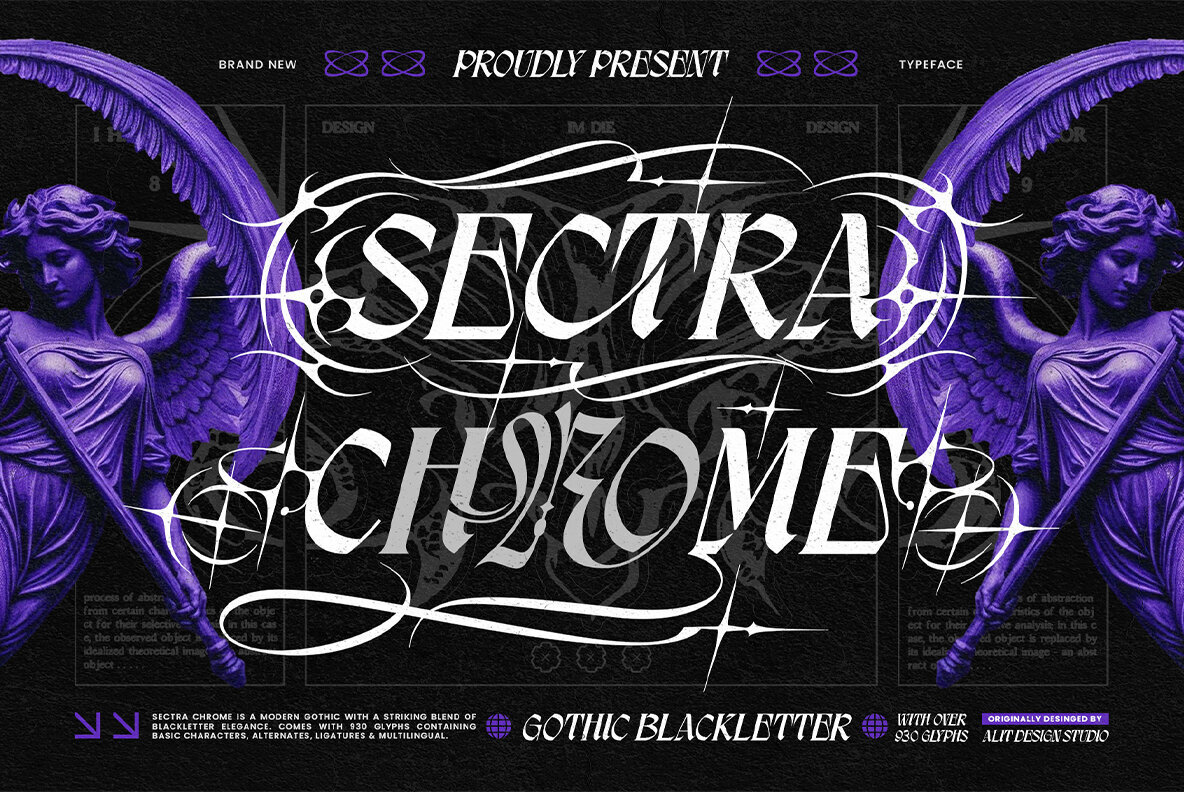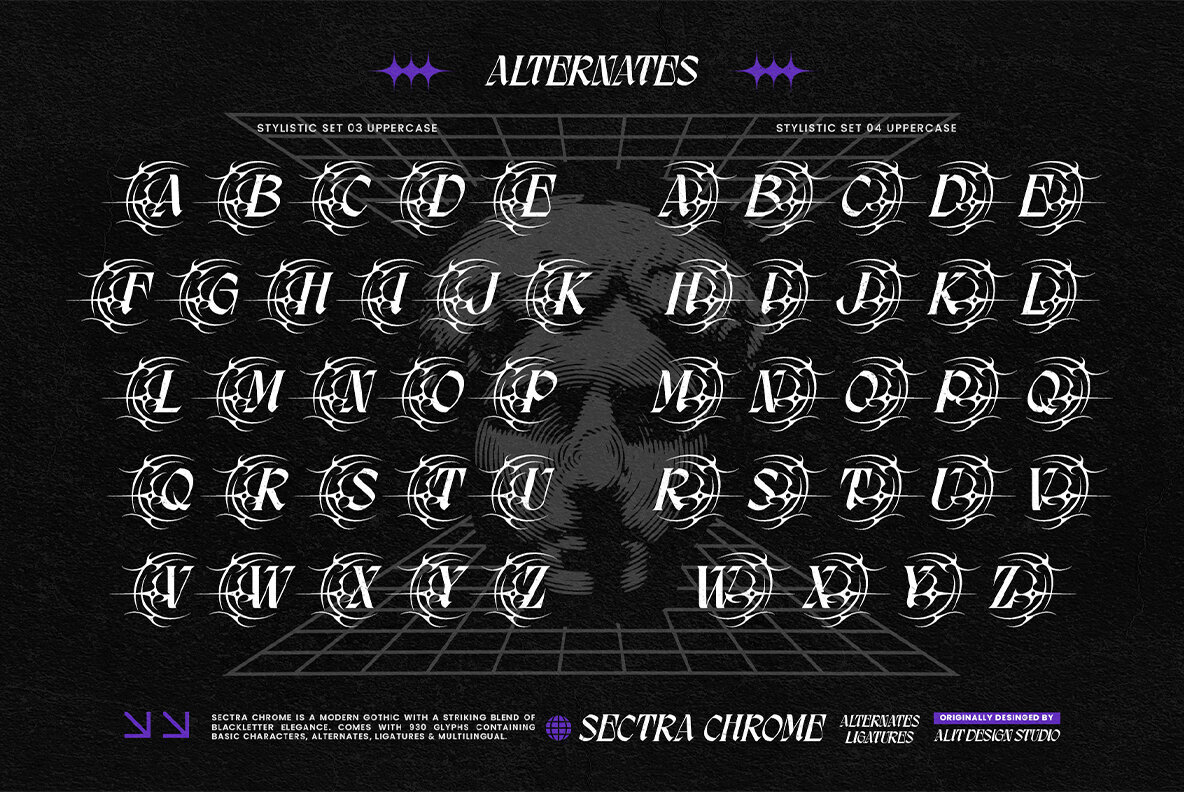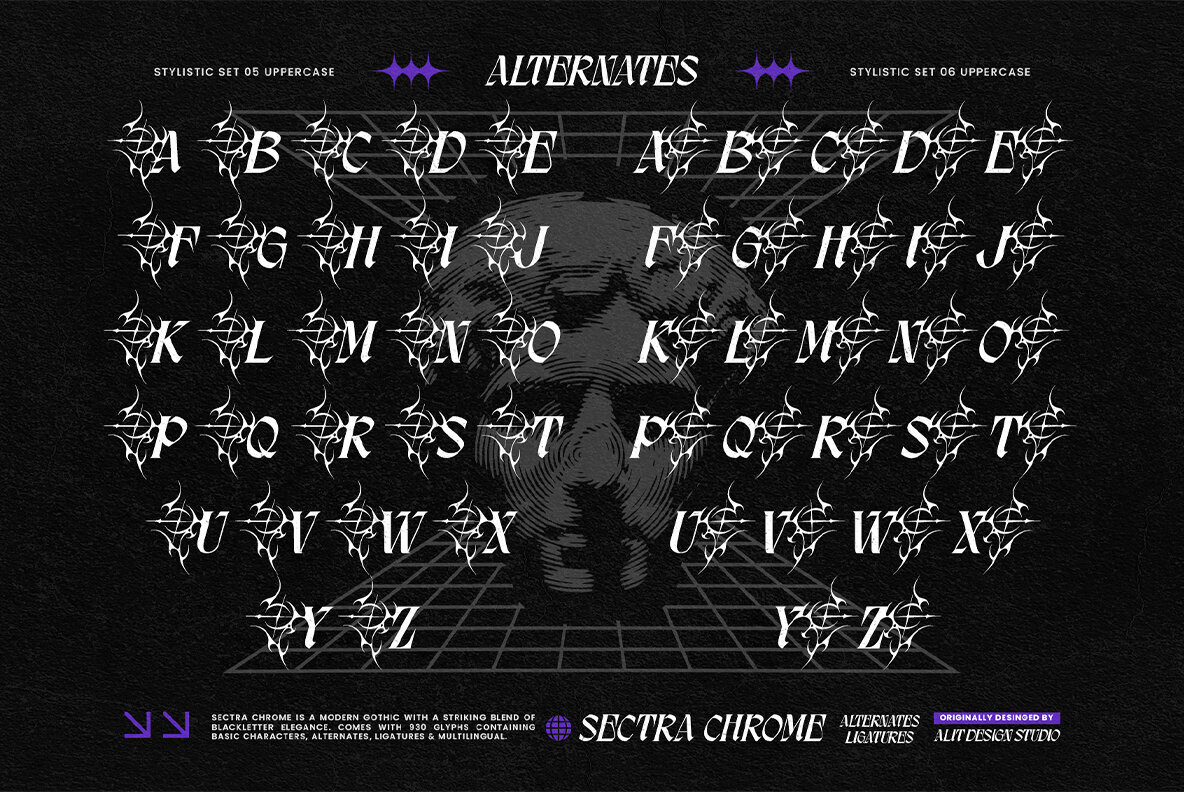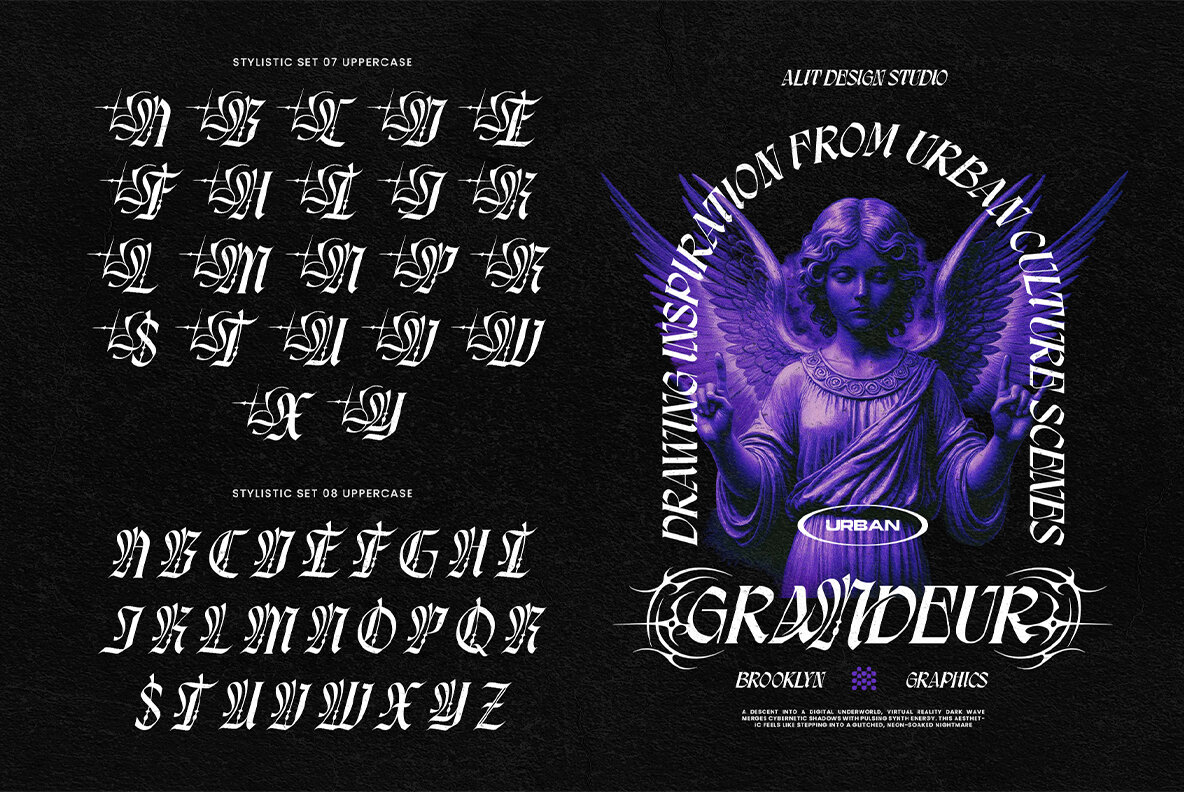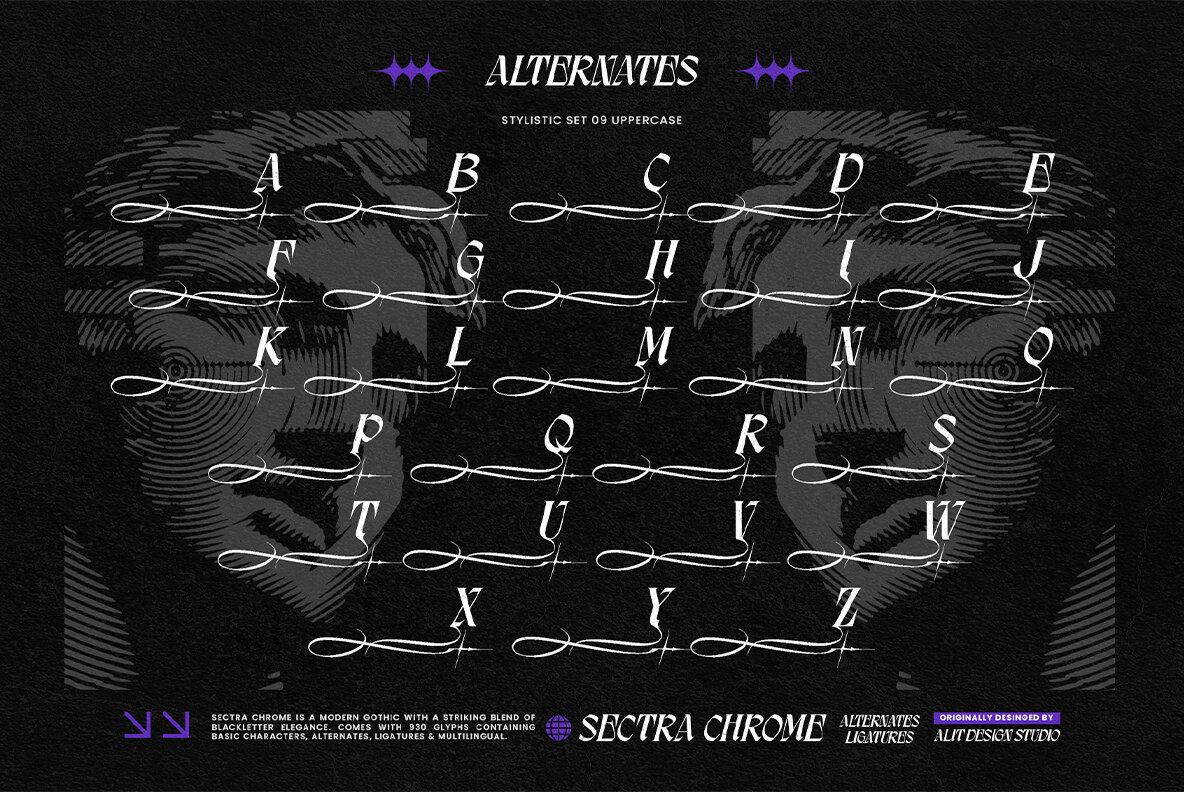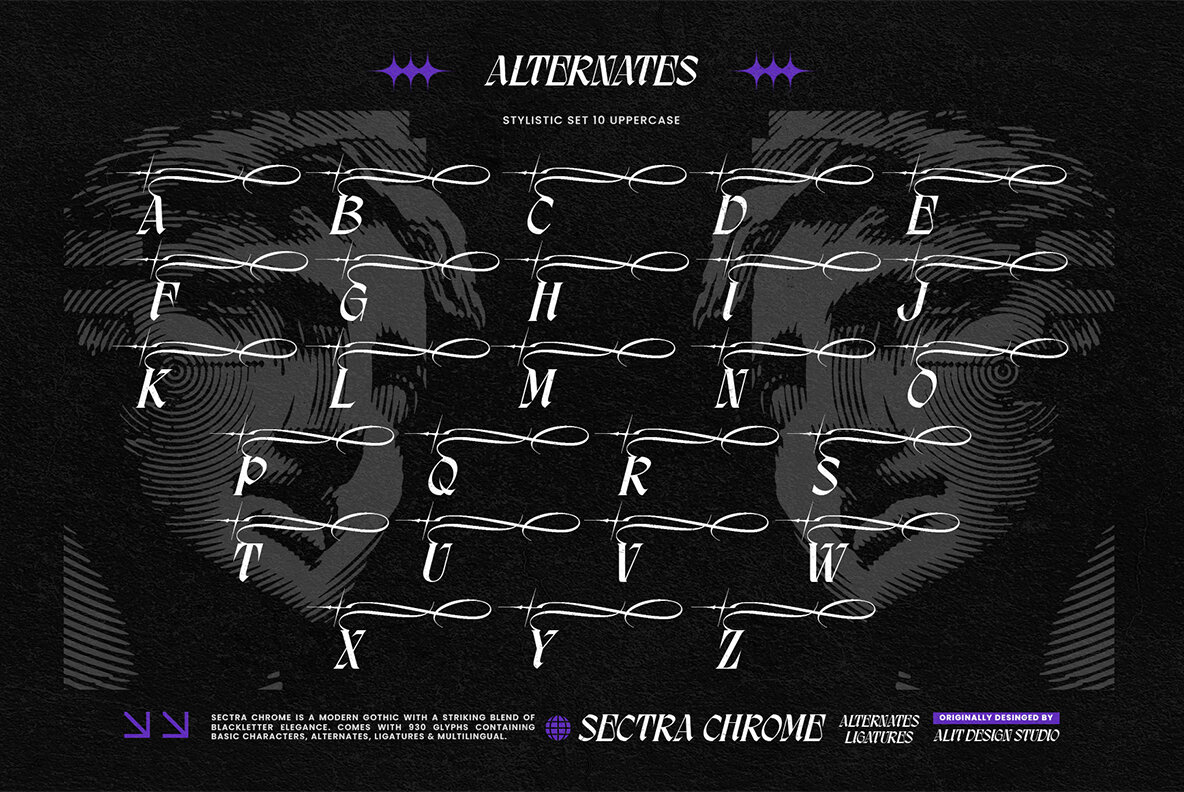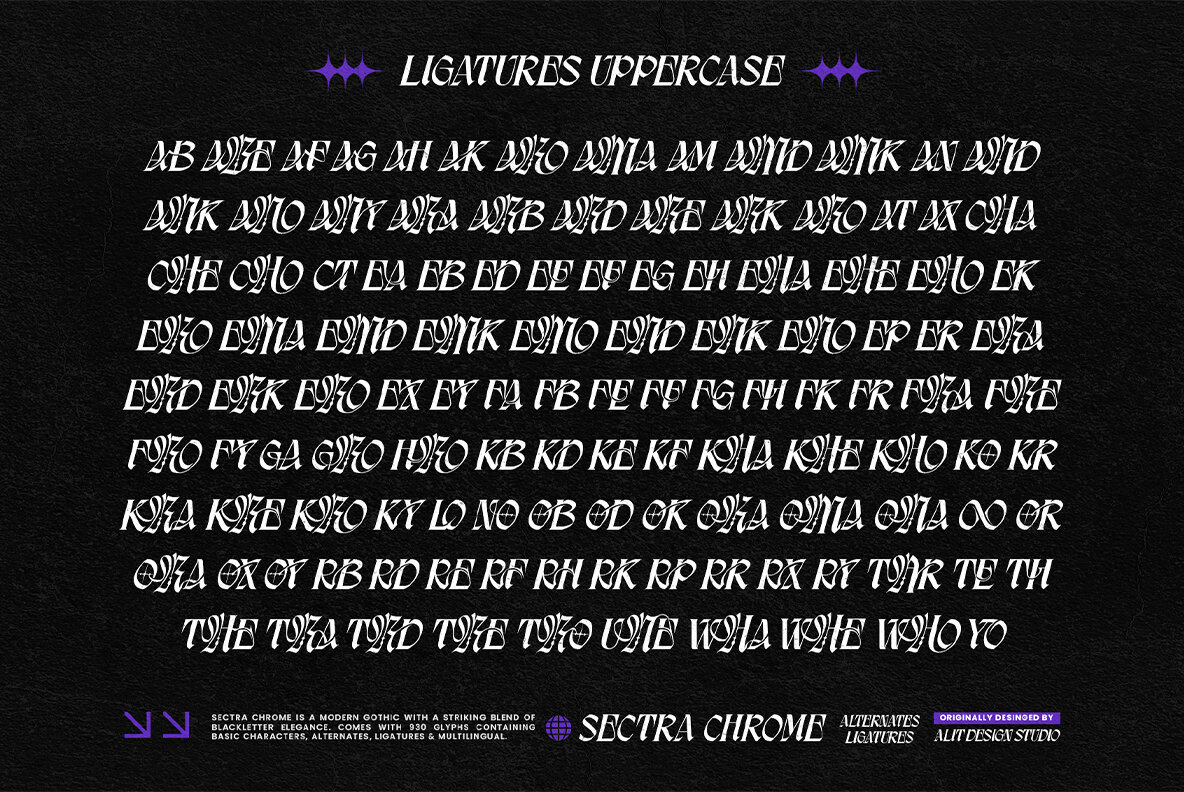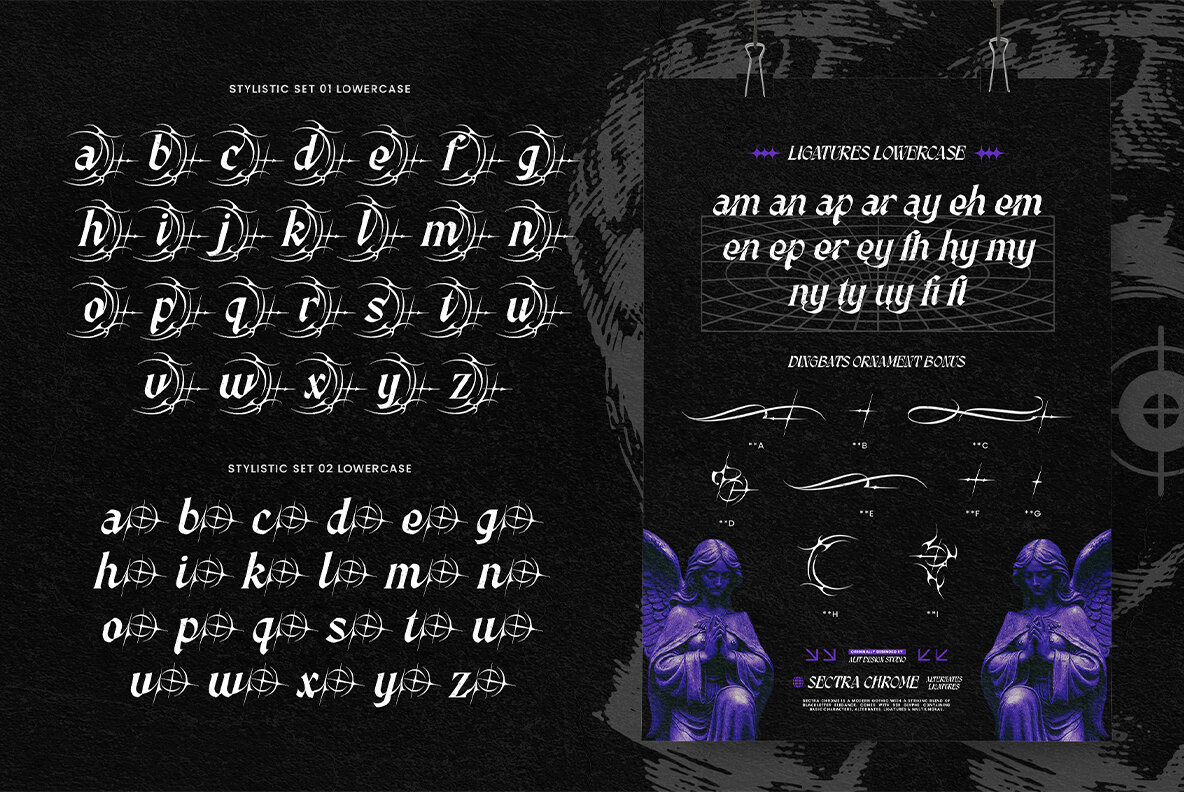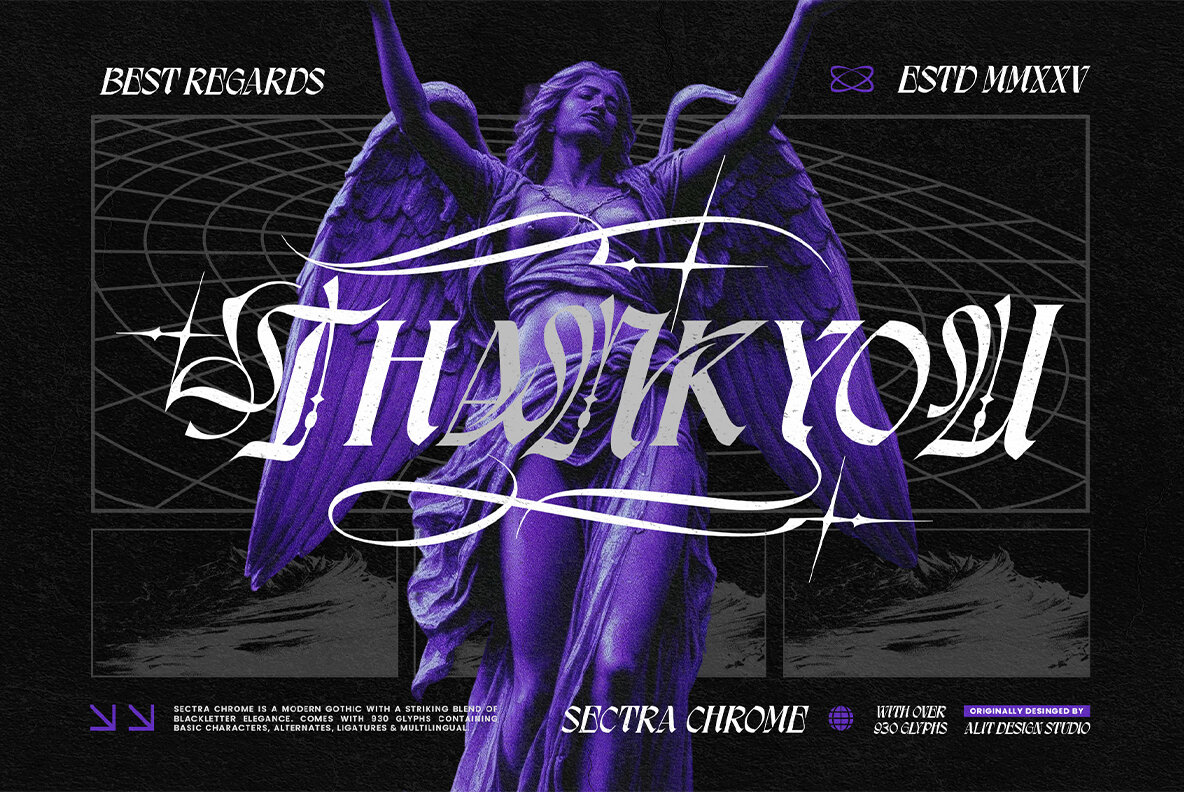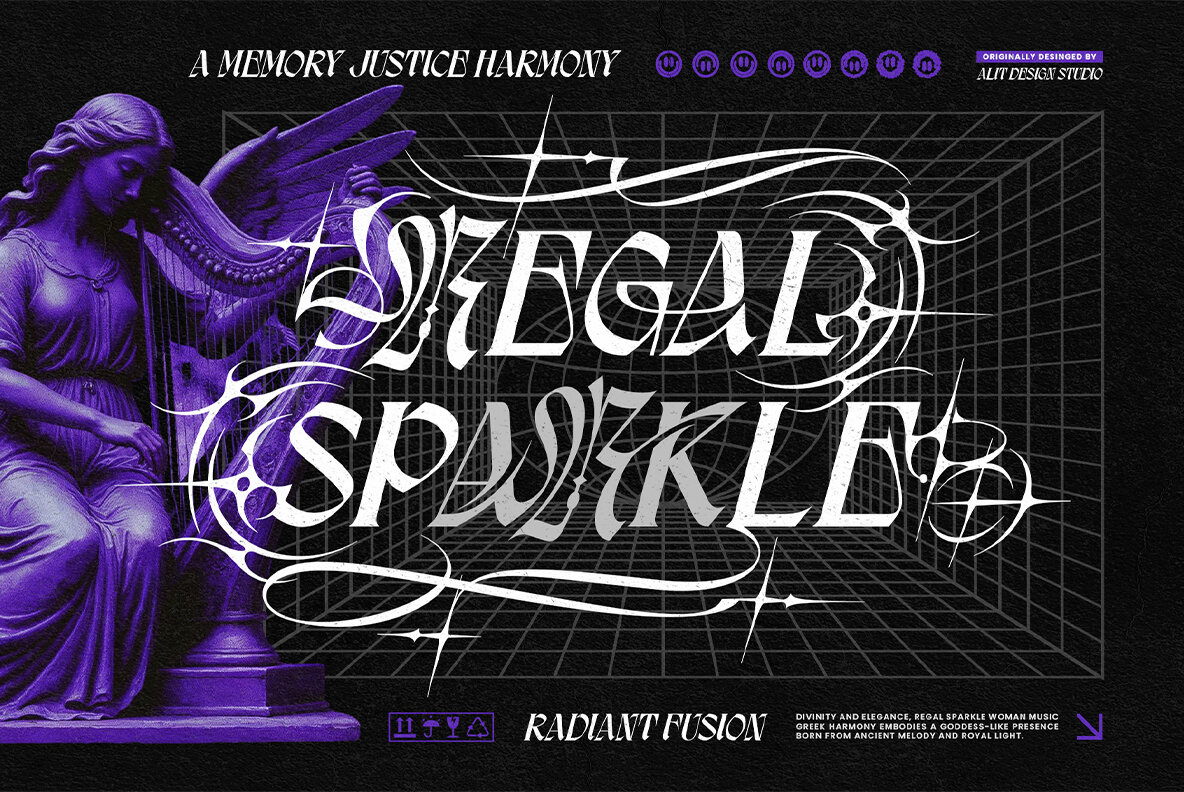
Sectra Chrome delivers a bold typographic statement that merges medieval blackletter traditions with the high-gloss attitude of Y2K digital aesthetics. This gothic-inspired typeface draws on the rhythmic sharpness of classic calligraphy, infusing it with the intricate detail and reflectivity reminiscent of chrome and acid graphics. It stands out for its unapologetic visual intensity, making it a focal point in projects demanding both edge and refinement. Designed for creative professionals seeking impact, Sectra Chrome offers a highly customizable platform. With more than 930 glyphs, this typeface allows extensive flexibility for expressive type design. Its stylistic sets enable seamless alternation between ornamental characters, chrome-infused frames, and dynamic swashes—ideal for custom logos or genre-defying headlines. The result is a font engineered not just for text, but for crafting visual identities that remain memorable in competitive spaces.Sectra Chrome: Modern Gothic Typeface With Chromatic Edge